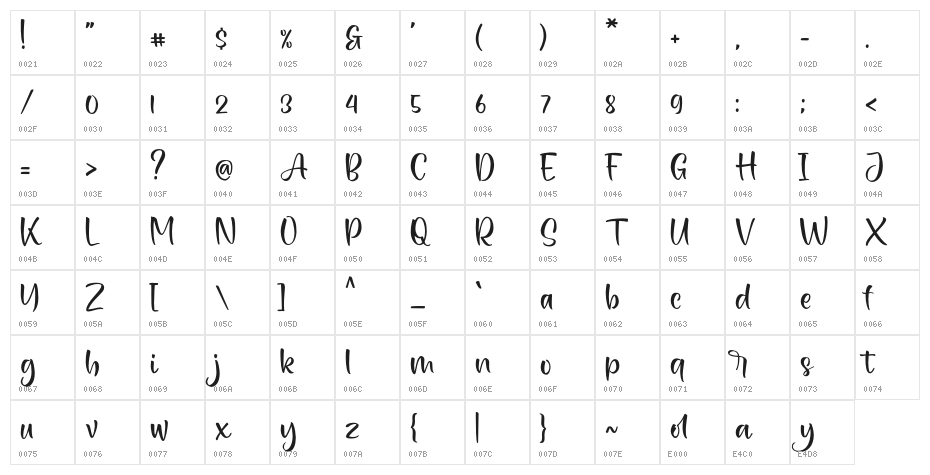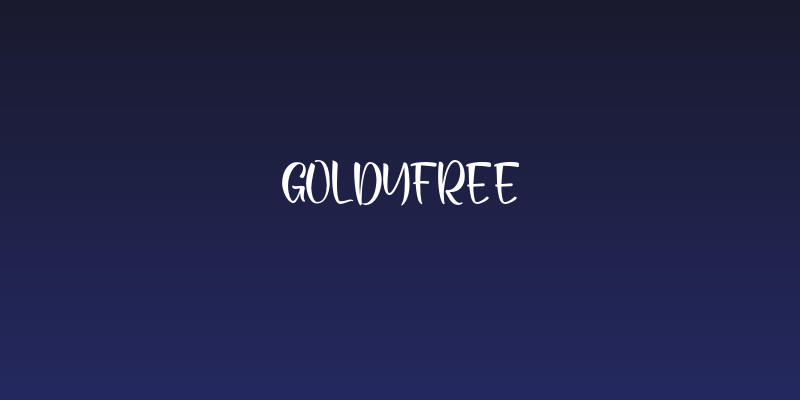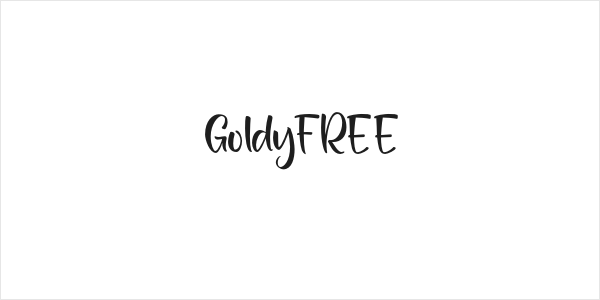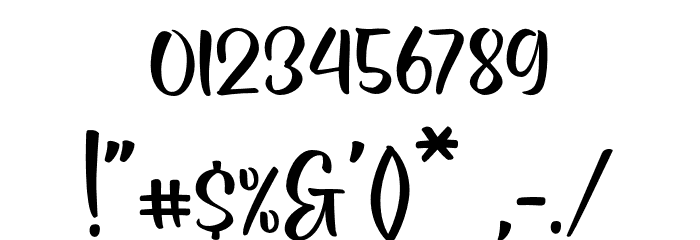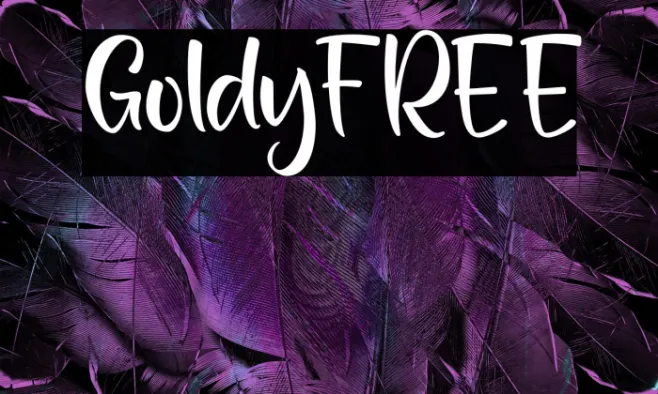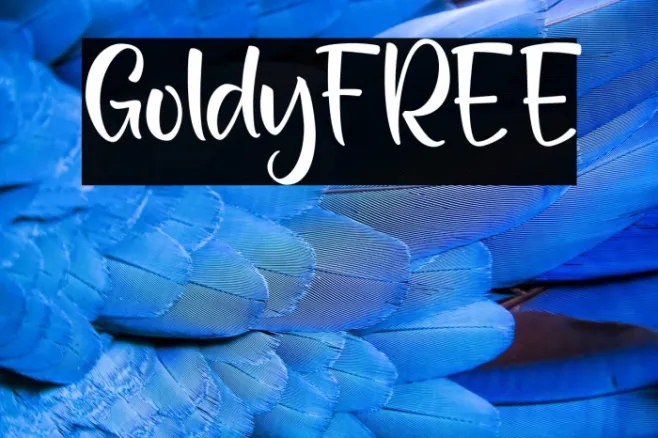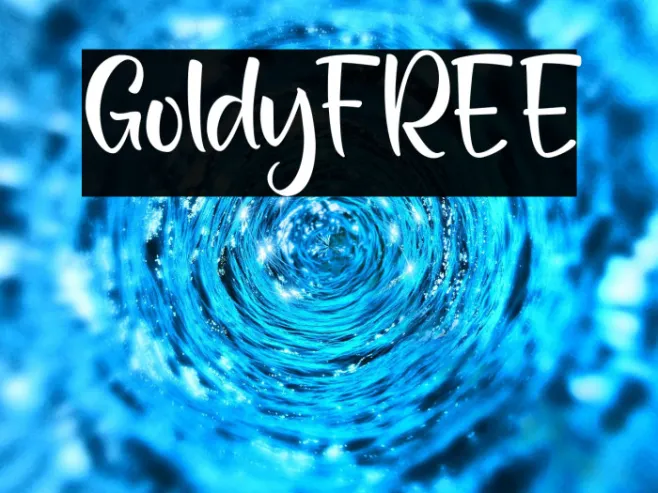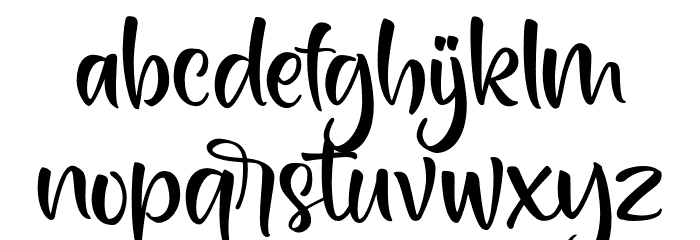
GoldyFREE Font
GoldyFREE Description
This font features a playful and energetic script style, characterized by its flowing, cursive letters with a slight slant. The uppercase letters are bold and expressive, while the lowercase letters maintain a consistent fluidity, adding a whimsical touch. The numerals are rounded and complement the overall style, making them easy to read. Special characters are creatively designed, adding to the font's charm. The strokes vary in thickness, providing a medium contrast that enhances readability while maintaining an artistic flair. This font is ideal for projects that require a personal, handwritten feel.